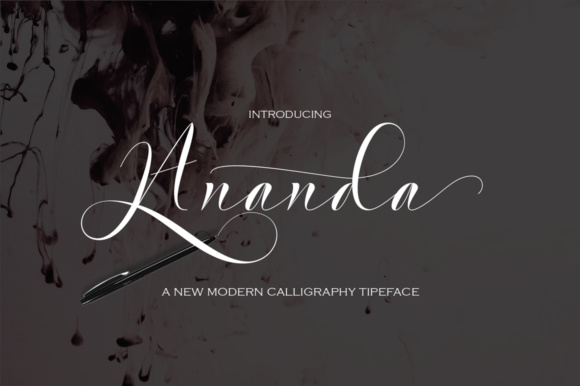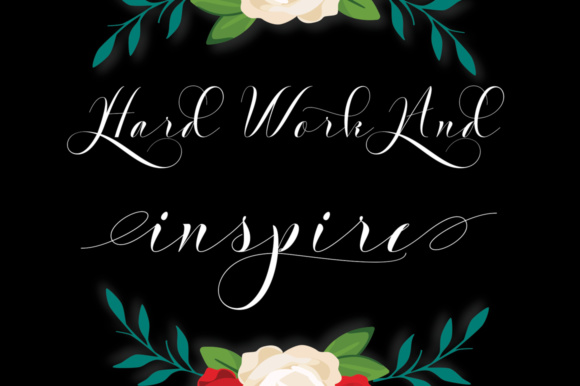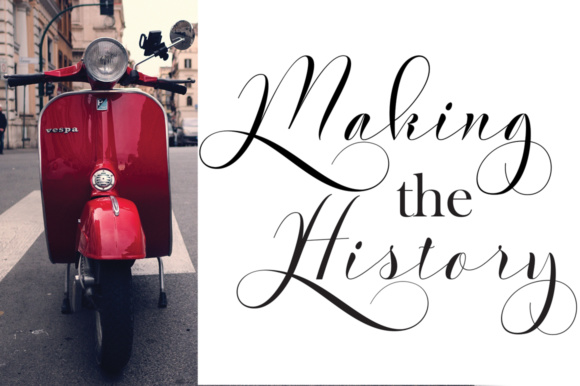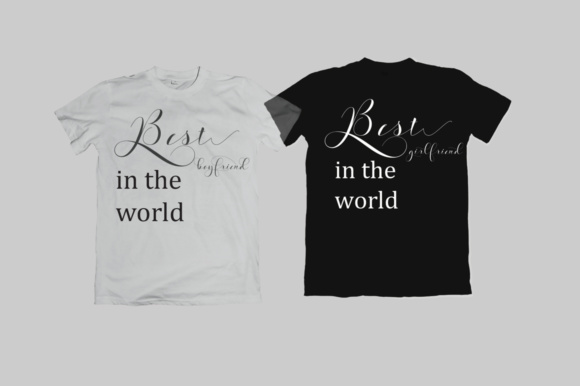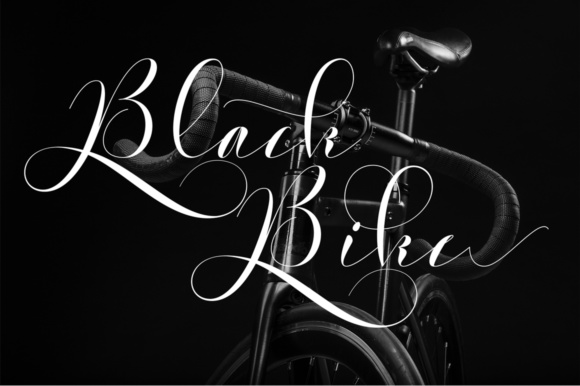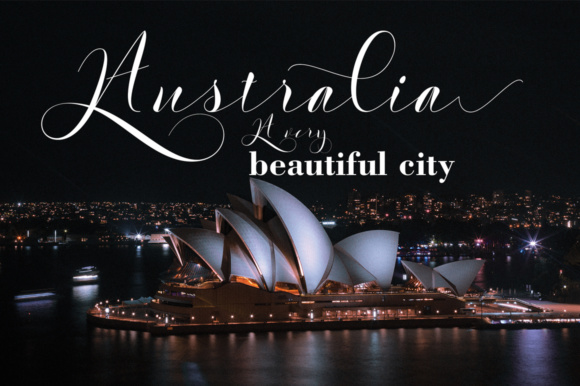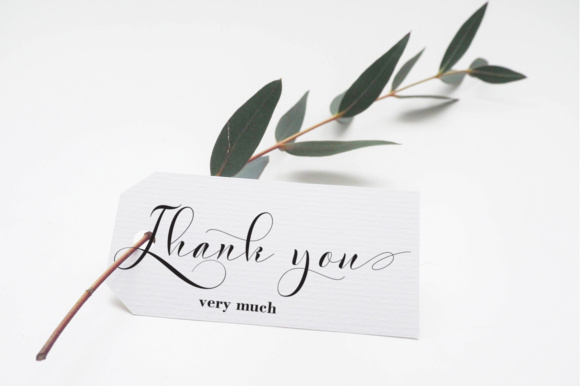
Ananda Font
About Ananda Font
Ananda Script is a stylish calligraphy font with a smooth baseline and a classic and elegant look. Ananda Script can be used for various purposes such as headings, signatures, logos, wedding invitations and much more!